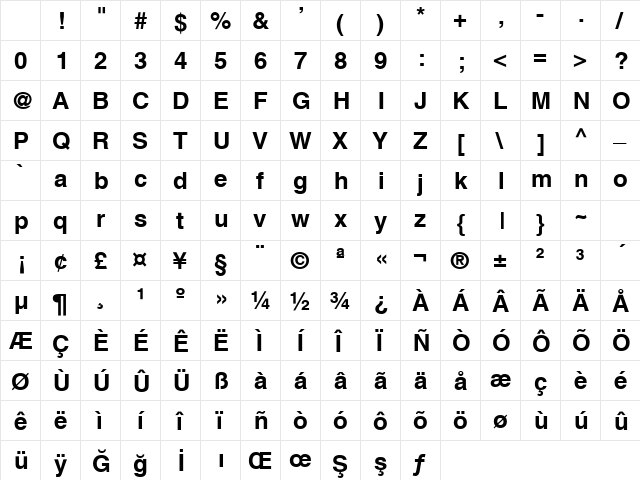
Complete Switzerland Bold glyph index. Displaying only characters natively supported by Switzerland Bold font.
Switzerland is a composed and adaptable typeface that performs quietly and consistently across a wide range of design contexts. Its bold stroke weight gives it real presence on the page.
Pro Tip: Use Switzerland in both headline and body roles to test its range before committing to a single application.